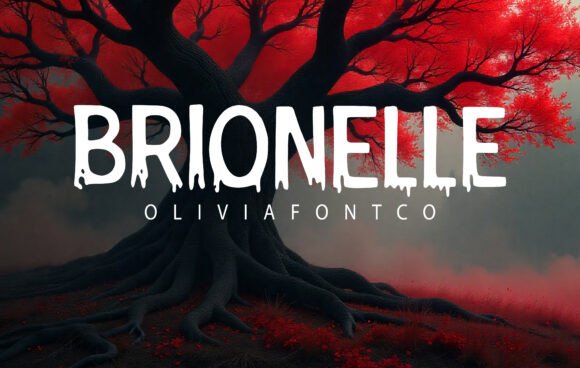
The Unforgettable Brionelle Font: A Design Game-Changer
I still remember the thrill of working on a horror movie poster project, determined to create something that would send shivers down the audience’s spine. The challenge? Finding the perfect font that would convey the dark, edgy vibe I was going for. That’s when I stumbled upon the Brionelle font, and it was love at first sight! 💡
This unique and dramatically stylized display font features a striking, bold, and melting-drip aesthetic, giving it an immediate sense of grunge, horror, or high-impact urban art. In this article, we’ll dive into the world of Brionelle, exploring its characteristics, uses, and what makes it an exceptional choice for designers, crafters, and creative hobbyists.
An Honest Review of Brionelle Font
What I Love About Brionelle ✨
- 💥 Visceral Impact: The heavy, almost liquid-like drips flowing from the base of the letters provide a visceral, unsettling, yet highly captivating look.
- ✅ High Visibility: The strong, condensed letterforms of the Brionelle font ensure high visibility, making it a spectacular header font.
- 🎨 Versatility: Brionelle is perfect for movie posters, album art, horror games, Halloween decorations, or any branding that needs to convey an edgy, dark, or intense mood.
- 🔥 Unique Style: The font’s distinctive, bold, and melting-drip aesthetic sets it apart from other fonts, making it a great choice for designers looking to add an unforgettable touch to their projects.
While Brionelle is an amazing font, there are a few things to keep in mind:
- 🤔 Legibility: Due to its bold and condensed nature, Brionelle may not be the best choice for body text or small font sizes.
- ⚠️ Overuse: As with any bold font, be careful not to overuse Brionelle, as it can quickly become overwhelming.
If you’re looking for more fonts like Brionelle, here are a few alternatives:
- Blowfish: A bold, drippy font with a similar melting effect.
- Grimgold: A heavy, industrial font with a distressed look.
- FaceFront: A bold, stencil-like font with a similar edgy vibe.
- Abaddon: A futuristic, sci-fi font with a similar sense of intensity.
The Backstory of Brionelle Font
The Brionelle font was designed with one goal in mind: to create a typeface that would evoke a sense of raw energy and intensity. Inspired by the dark alleys of urban art and the bold statements of horror movies, Brionelle is the perfect choice for designers looking to push the boundaries of their creativity.
Q: What type of projects is Brionelle best suited for?
A: Brionelle is perfect for movie posters, album art, horror games, Halloween decorations, or any branding that needs to convey an edgy, dark, or intense mood.
Q: Can I use Brionelle for body text?
A: Due to its bold and condensed nature, Brionelle is not recommended for body text or small font sizes.